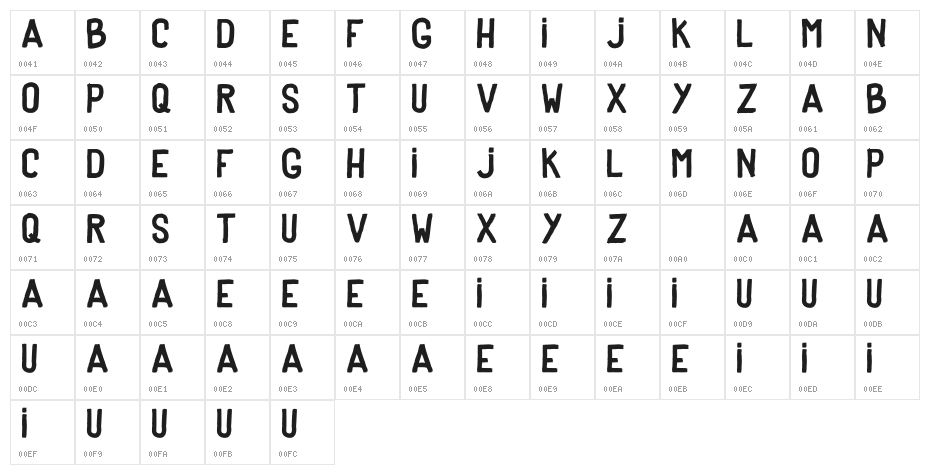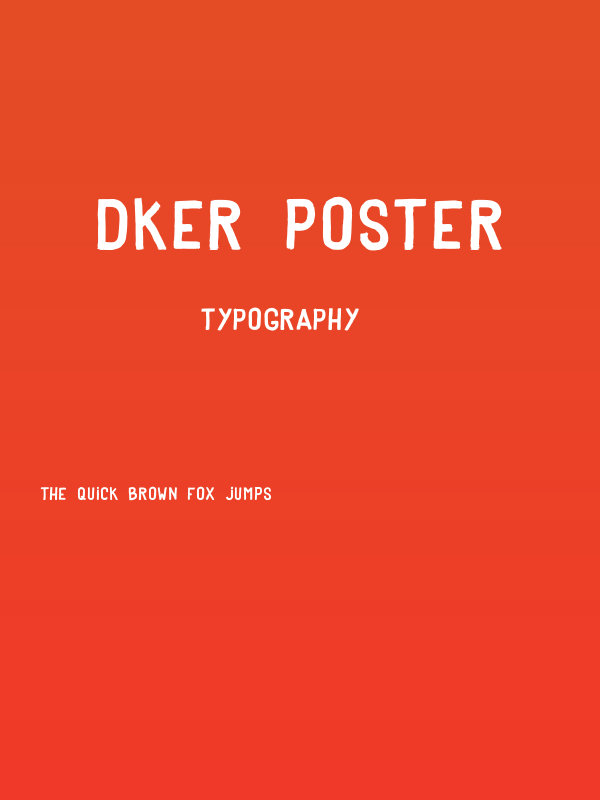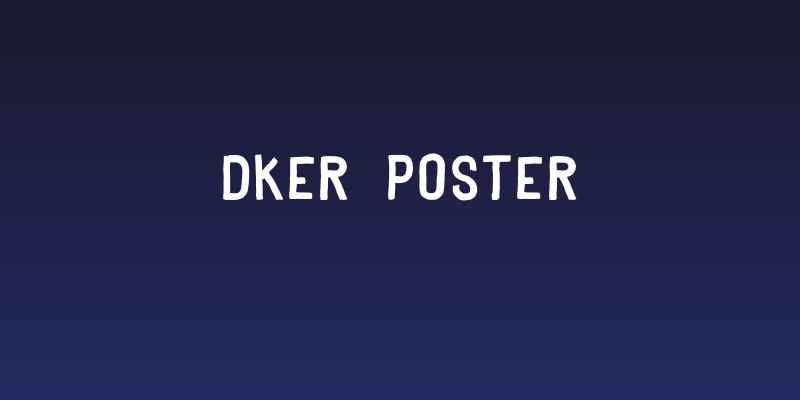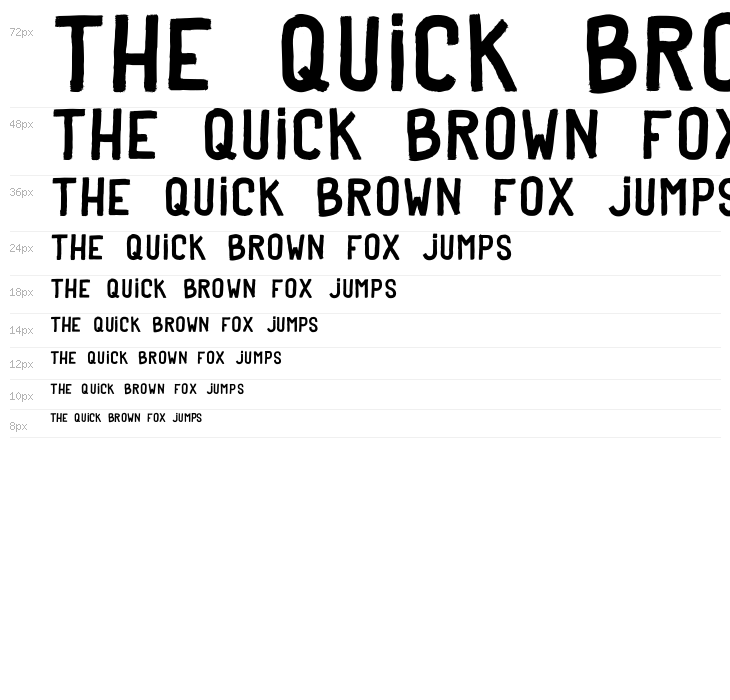
Dker Poster Font
✎ Distorted Eroded
| समग्र शैली | Vintage |
| उपयोग का मामला | Headlines, Logos, Posters |
| सुझाए गए प्रोजेक्ट | Ideal for posters, branding, headlines, and any design requiring a strong, vintage aesthetic. |